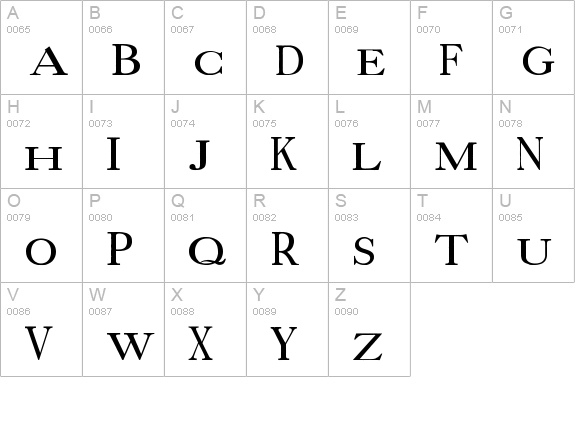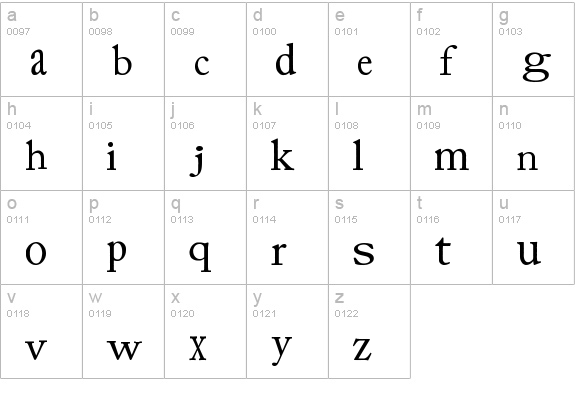
Prissy Frat Boy Font Details
Introducing Prissy Frat Boy font, a playful and stylish typeface perfect for adding a touch of sophistication to your designs. This font features elegant curves and a touch of whimsy that will make your text stand out. Whether you're designing invitations, logos, or social media graphics, Prissy Frat Boy font is sure to make a statement. Best of all, Prissy Frat Boy font is available for free download at FontsMarket.com. So go ahead and elevate your designs with this charming and versatile font today!